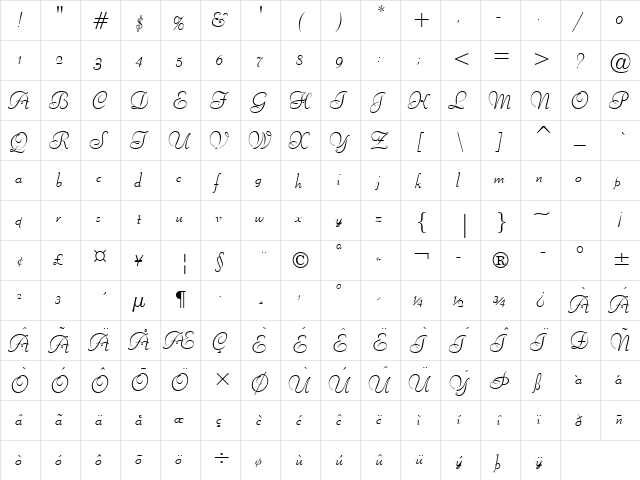
Refined Normal
Design Context for Refined Typeface
Refined is a composed and adaptable typeface that performs quietly and consistently across a wide range of design contexts.